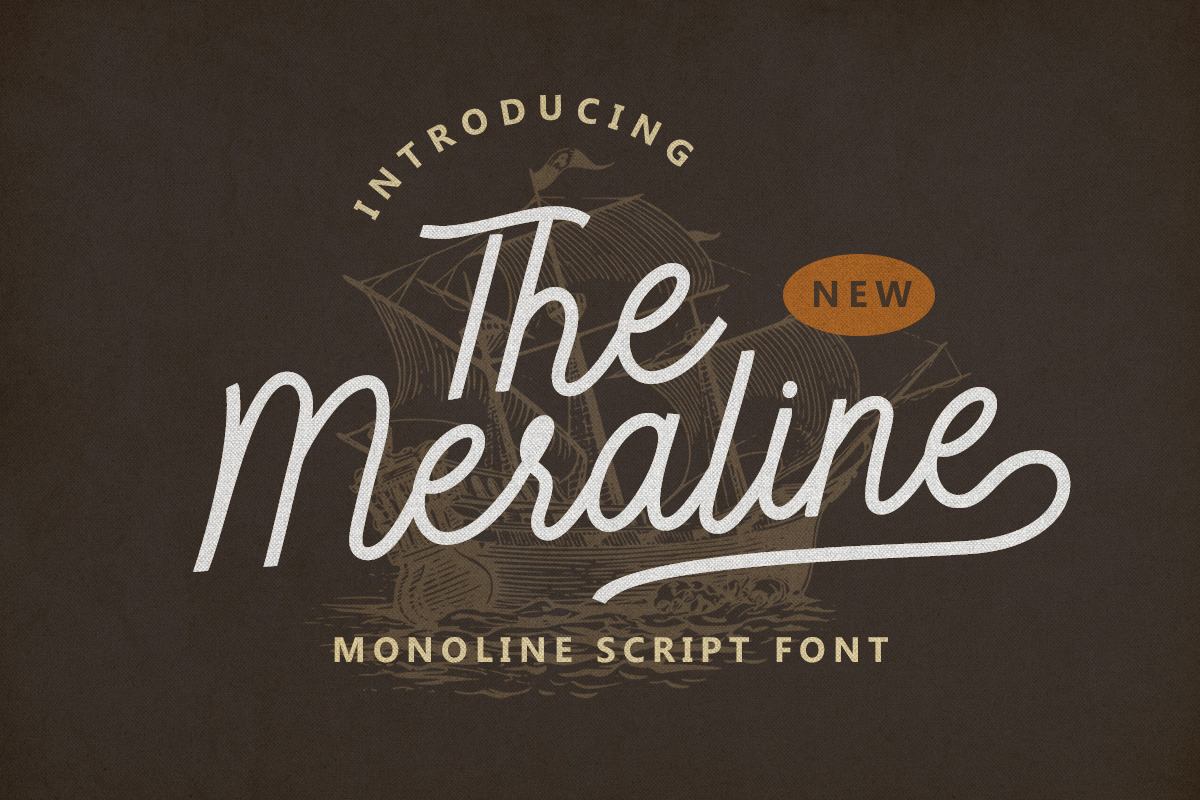
Please note that you must purchase this font for commercial use. You can download Meraline – Monoline Script Font for free, strictly for personal testing purposes only. Meraline is a clean and elegant monoline script font that blends simplicity with charm. Featuring smooth, flowing lines and a consistent stroke width, Meraline Monoline Script Font Free Download is perfect for logos, signatures, wedding invitations, branding, social media posts, and minimalist packaging.
Its handwritten style adds a personal, modern touch without being overly decorative—making it ideal for both casual and professional design use. Meraline includes uppercase and lowercase letters, numerals, punctuation, and multilingual support, offering flexibility for a wide range of creative projects.
Whether you're crafting a chic logo or a heartfelt message, Meraline delivers timeless beauty with subtle sophistication.